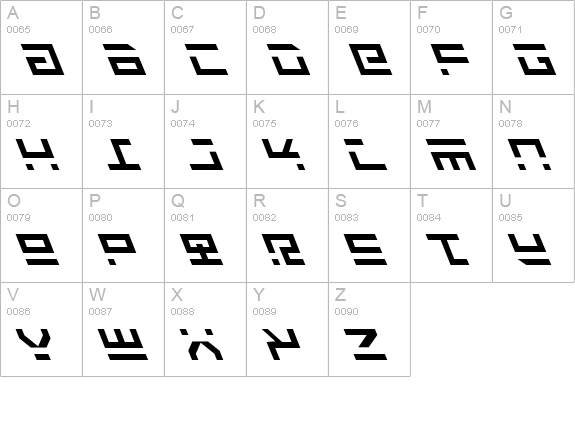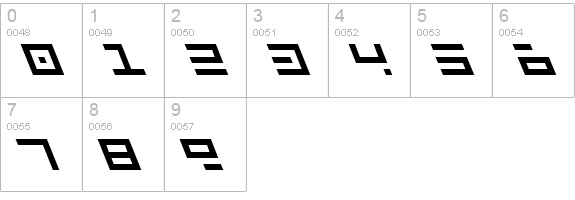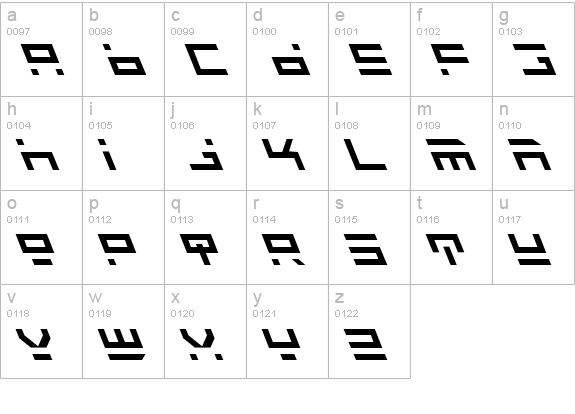
Rocket Type Leftalic font is a sleek and modern typeface that exudes elegance and sophistication. With its unique italic style, this font is perfect for adding a touch of flair to your designs. The sharp angles and dynamic curves of Rocket Type Leftalic make it stand out, while still maintaining a sense of professionalism. Whether you're designing a logo, creating a poster, or crafting a website layout, this font is sure to make a bold statement. Best of all, Rocket Type Leftalic is available for free download at FontsMarket.com. This means you can easily incorporate this stunning font into your projects without breaking the bank. Don't miss out on the opportunity to elevate your designs with the striking beauty of Rocket Type Leftalic - download it today and let your creativity take flight!